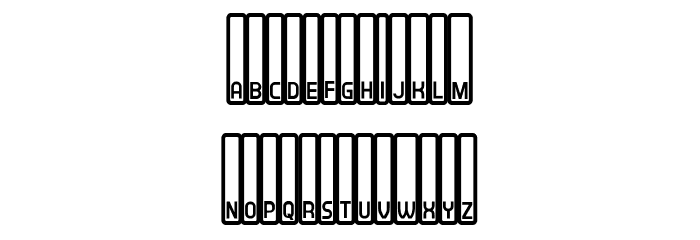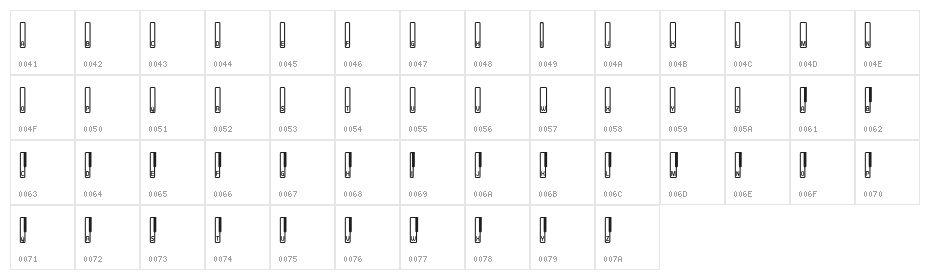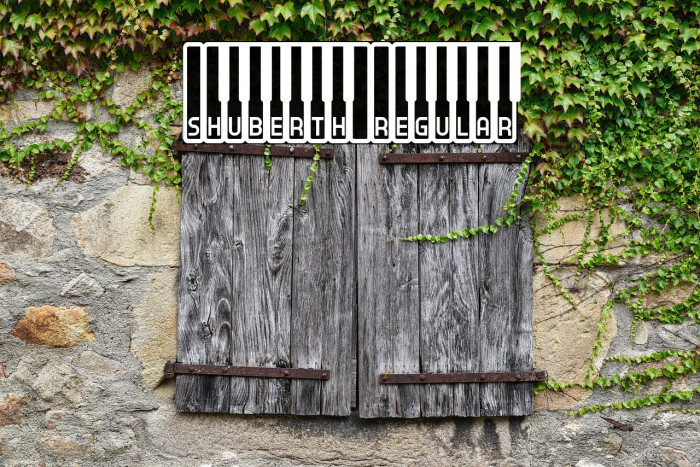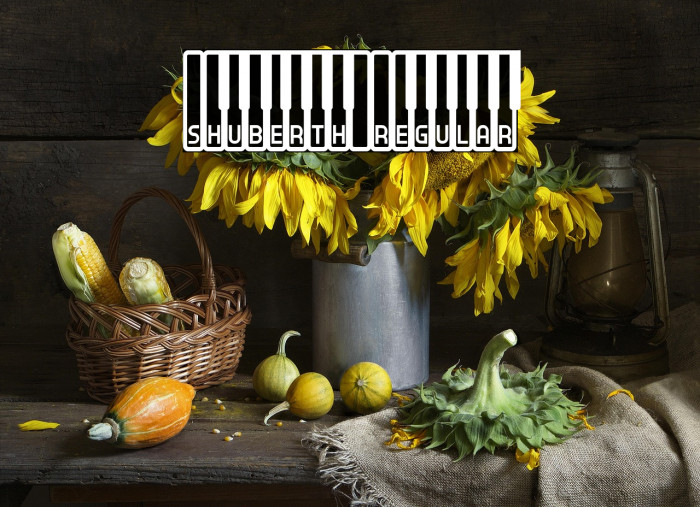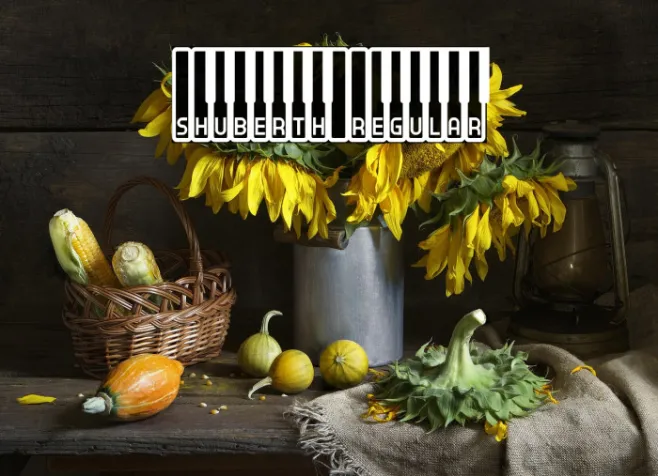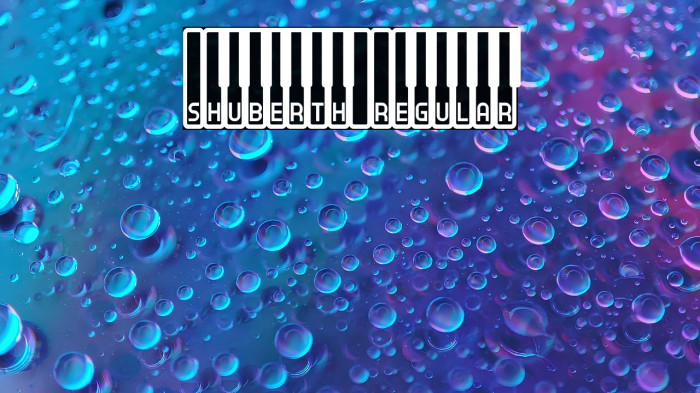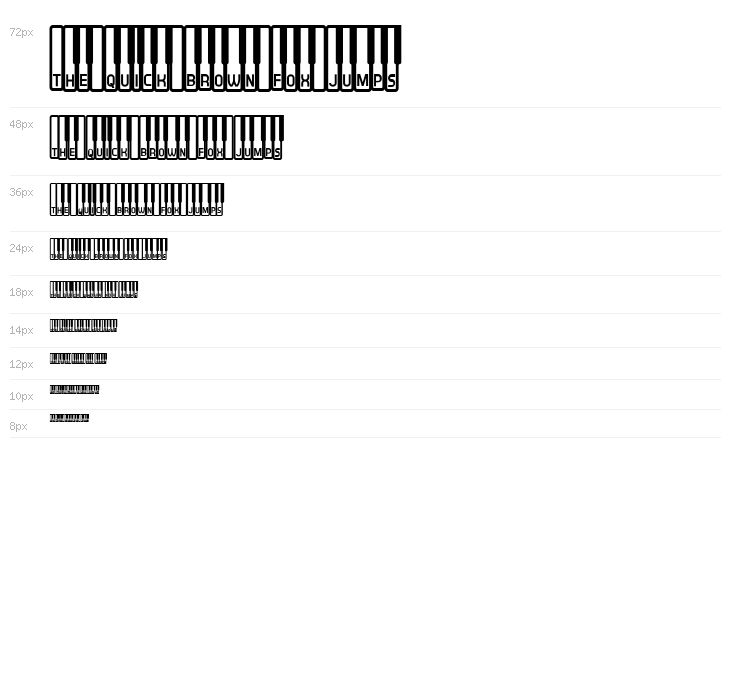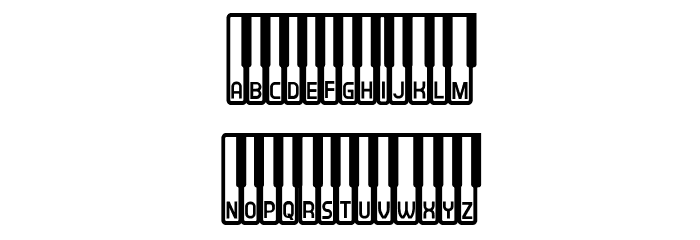
Shuberth Regular Font
Shuberth Regular Description
This font features a unique and playful design, where each character is embedded within a piano key motif. The letters are bold and clear, making them stand out against the contrasting black and white keys. The style is highly decorative, combining elements of musical imagery with typography. Each character is uniformly sized, maintaining a consistent visual rhythm across the alphabet. This design is particularly eye-catching and would be ideal for projects that aim to convey a sense of creativity and musicality.
| Proposed Projects | Ideal for music-themed posters, event flyers, album covers, and creative branding projects. |